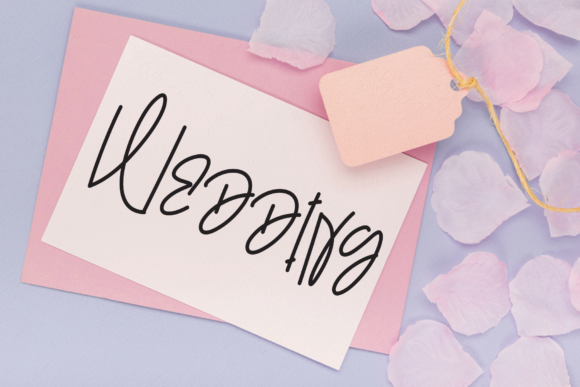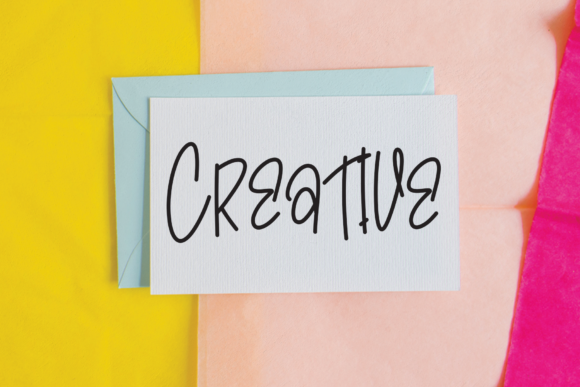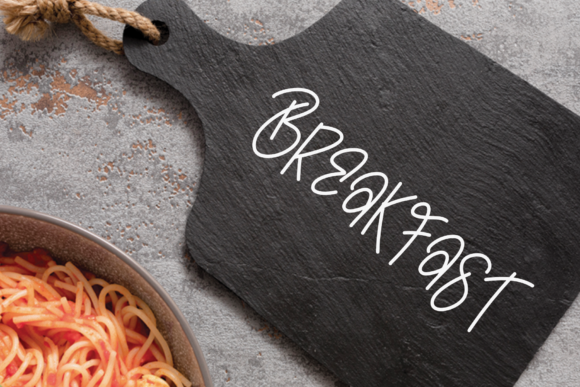
The Vintage Font
About The Vintage Font
The Vintage is a cool, asymmetric and casual handwritten font. Its informal style will make this font a go-to choice for each of the creations that require a relaxed touch.